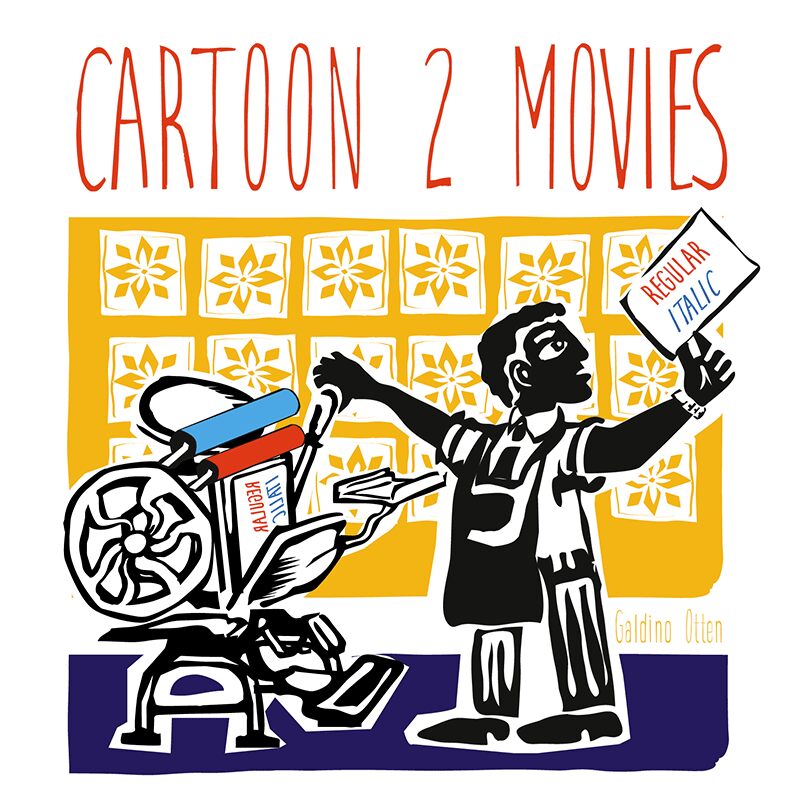
Cartoon 2 Movies Italic
Cartoon 2 Movies Italic, a captivating handwritten font designed by Galdino Otten Fonts, exudes a whimsical and playful charm. This light, condensed typeface boasts a delightful, organic flow, seamlessly blending the casual elegance of handwritten scripts with a touch of vintage flair. Its fluid lines and distinctive character shapes create a sense of movement and energy, inviting the viewer to embark on a captivating visual journey.
This versatile font finds its stride in a multitude of design applications, from vibrant movie titles and eye-catching posters to charming product labels and engaging social media graphics. Its personality-driven aesthetic lends itself effortlessly to branding projects, personal stationery, and creative content, where the font's ability to evoke a sense of nostalgia and playfulness can truly shine.